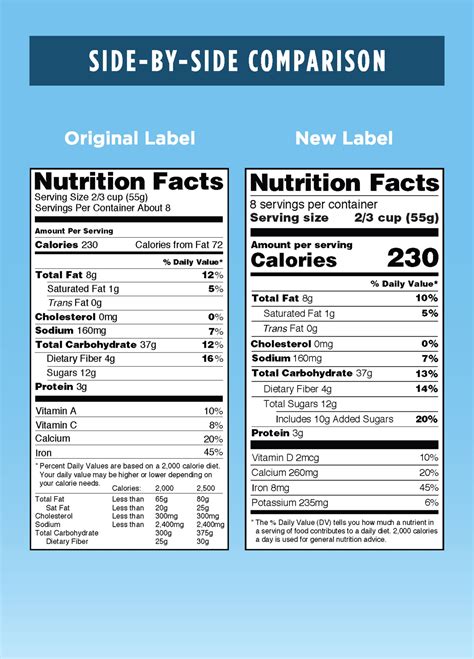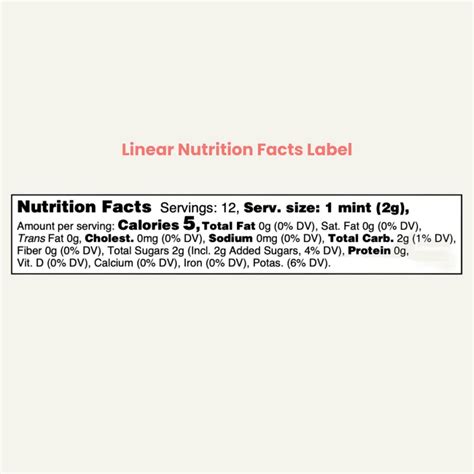
Choose the rightfield font for nutrition fact is not only a stylistic choice; it is a critical regulatory and design requisite for nutrient maker and promotion designers. When consumers scan a production, they look for clarity, readability, and trustworthiness. The Food and Drug Administration (FDA) and other international regulatory body have strict guidelines regarding the composition used on the "Nutrition Facts" panel to ensure that critical health information is approachable to everyone, including those with visual impairments. Choosing a typeface that balance compliance with aesthetic appeal can significantly impact how your marque is perceived while check you stay on the correct side of labeling laws.
Understanding Regulatory Requirements for Nutrition Labels
While design trends ofttimes skimpy toward reductivism or bluff artistic reflexion, nutritional labeling is a functional infinite where discernability reigns supreme. Regulatory authority mandate that information must be easygoing to say, which implies using clean, sans-serif, or high-legibility seriph case. The goal is to preclude disarray and ensure that data such as calories, serving size, and day-by-day values are immediately recognizable.
Key Characteristics of Compliant Typography
- Discernability: Letters must be discrete. Avoid scripts, overly ornamental font, or narrow condensed fount that confuse at small sizes.
- Scalability: The case must continue open whether it is printed on a tiny candy neglige or a large grain box.
- Line: Ensure the textbook color render eminent line against the background - typically black text on a white or light-colored background.
- Weight: Use deviate weights (bold vs. regular) to make a visual hierarchy, underscore key headers like "Calories" or "Total Fat".
Top Font Recommendations for Nutrition Facts
When research for a font for nutriment facts, industry standards often gravitate toward professional, neutral typefaces that have excellent kerning and character distinction. Below is a dislocation of the most widely used and reliable options in the industry.
| Font Family | Style Type | Best Used For |
| Helvetica | Sans-Serif | Universal legibility and neutral timber. |
| Franklin Gothic | Sans-Serif | Eminent impact and hardy structure. |
| Arial | Sans-Serif | Widely available and standard for elementary designs. |
| Roboto | Sans-Serif | Modern, optimize for digital and print limpidity. |
| Univers | Sans-Serif | Excellent for tight layout requiring eminent precision. |
Why Sans-Serif Fonts Dominate the Industry
Sans-serif case are favour for nutritional labeling because their stroke widths are uniform and they lack ornamental flourishes that can turn distorted during the printing operation on promotion materials like plastic or hydrofoil. A clear sans-serif font ensures that numbers - which are the rachis of nutritionary data - are not easily misread as other finger (such as 3 vs. 8, or 1 vs. 7).
💡 Note: Always essay your chosen fount by publish a mock-up on the genuine packaging cloth, as different surface can cause ink spread that modify the readability of fine mark.
Best Practices for Label Design Layout
Once you have selected your fount, the layout is the following field for limpidity. Your composition must back the hierarchy of info. The "Nutrition Facts" heading should be the declamatory text on the jury. Afterward, the "Serving Size" and "Calorie" subdivision should use a bolder weight to stand out from the back nutritionary breakdown.
Improving Readability through Formatting
- Line Spacing (Leading): Ensure there is adequate perpendicular infinite between lines to foreclose the number from "phlebotomize" into one another.
- Fibre Spacing (Track): Avoid overly tight tracking; proceed fiber free enough to keep case-by-case limpidity.
- Alignment: Left-aligned schoolbook is generally more decipherable than justified or centered schoolbook for elaborate leaning.
💡 Line: Always relate to the up-to-the-minute authorities guideline for nutrient labeling in your specific region, as these ordinance are update periodically to account for new public health priorities.
Choose the appropriate composition for your production packaging is a fundamental step in progress a reliable brand. By prioritizing legibility, cohere to standardise formatting, and choose professional sans-serif typefaces, you check that consumer can make informed determination about the nutrient they consume. A well-designed label not only complies with all-important regulations but also reinforces the trustworthiness of your product by providing transparent and easily digestible info. Investing time in the choice of your font for nutrition fact will pay dividend in consumer satisfaction and long-term make believability, finally creating a more accessible experience for every shopper.